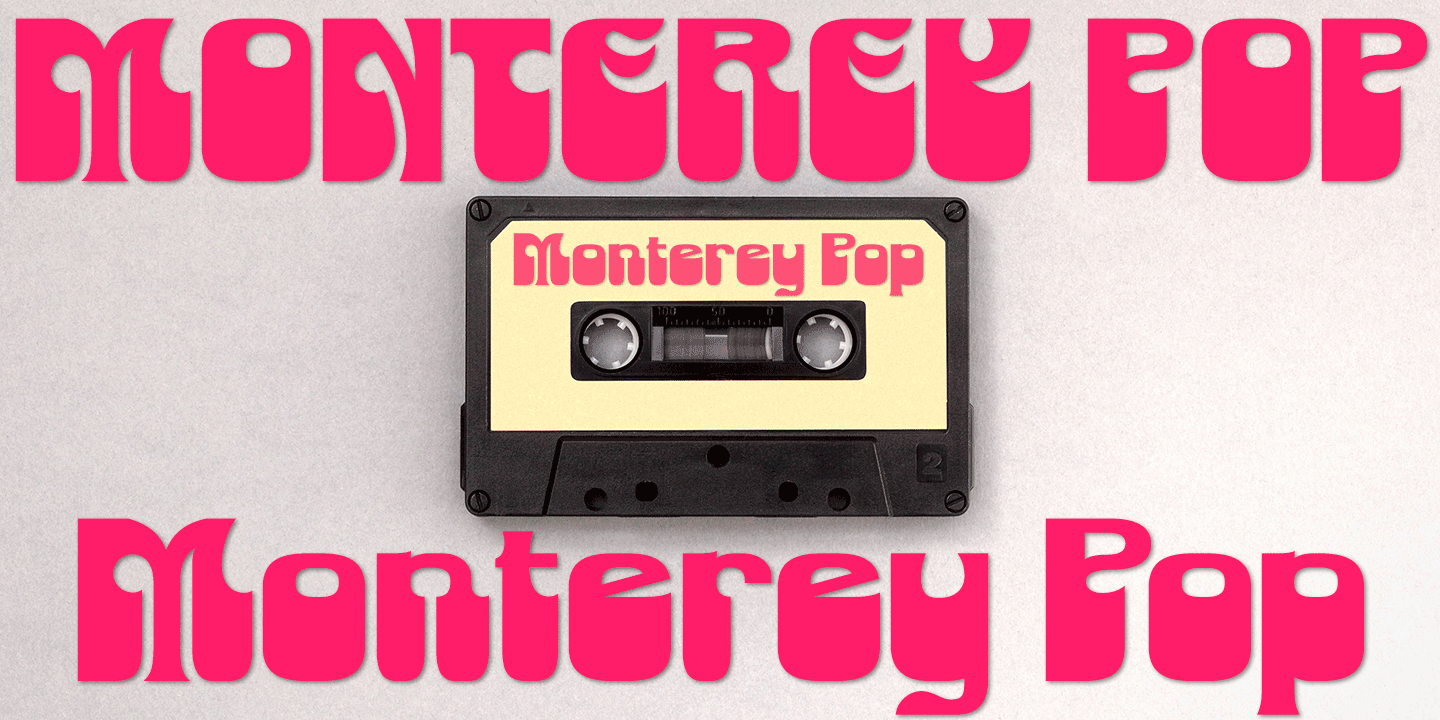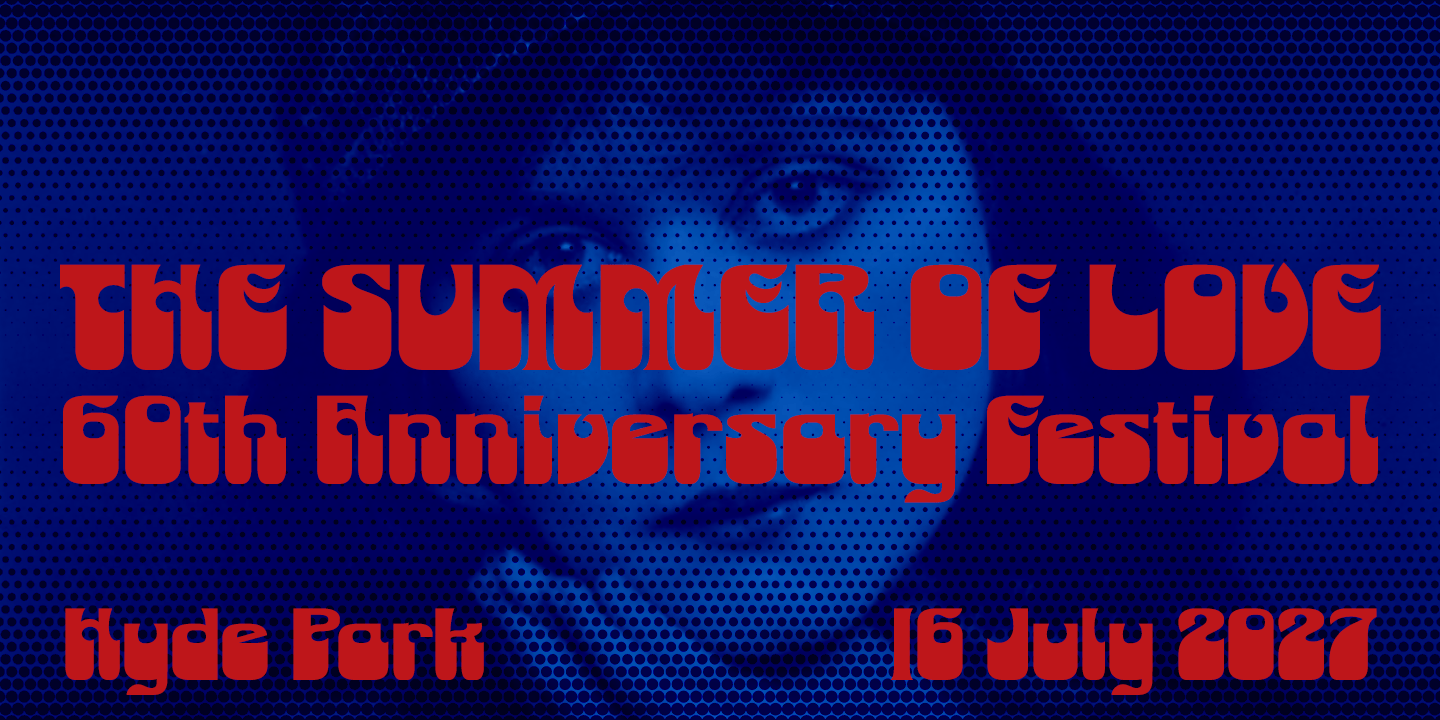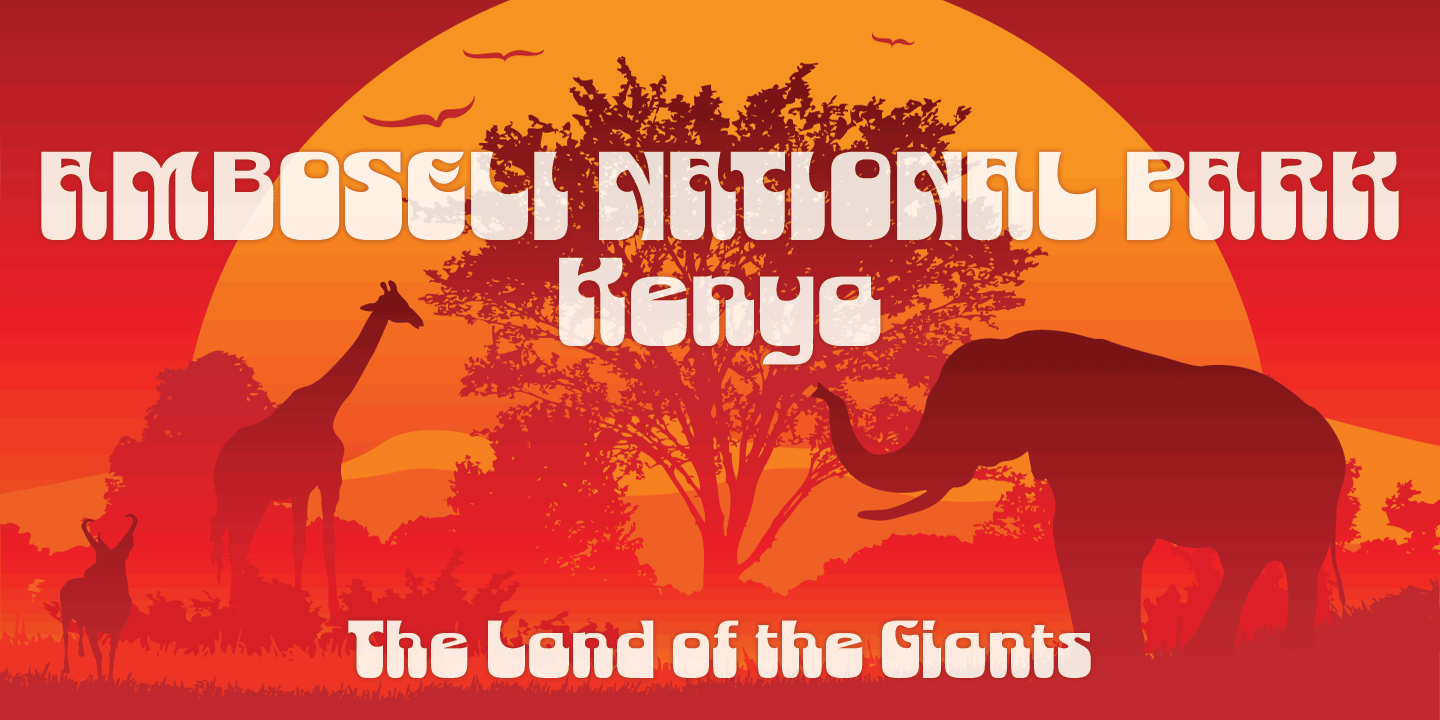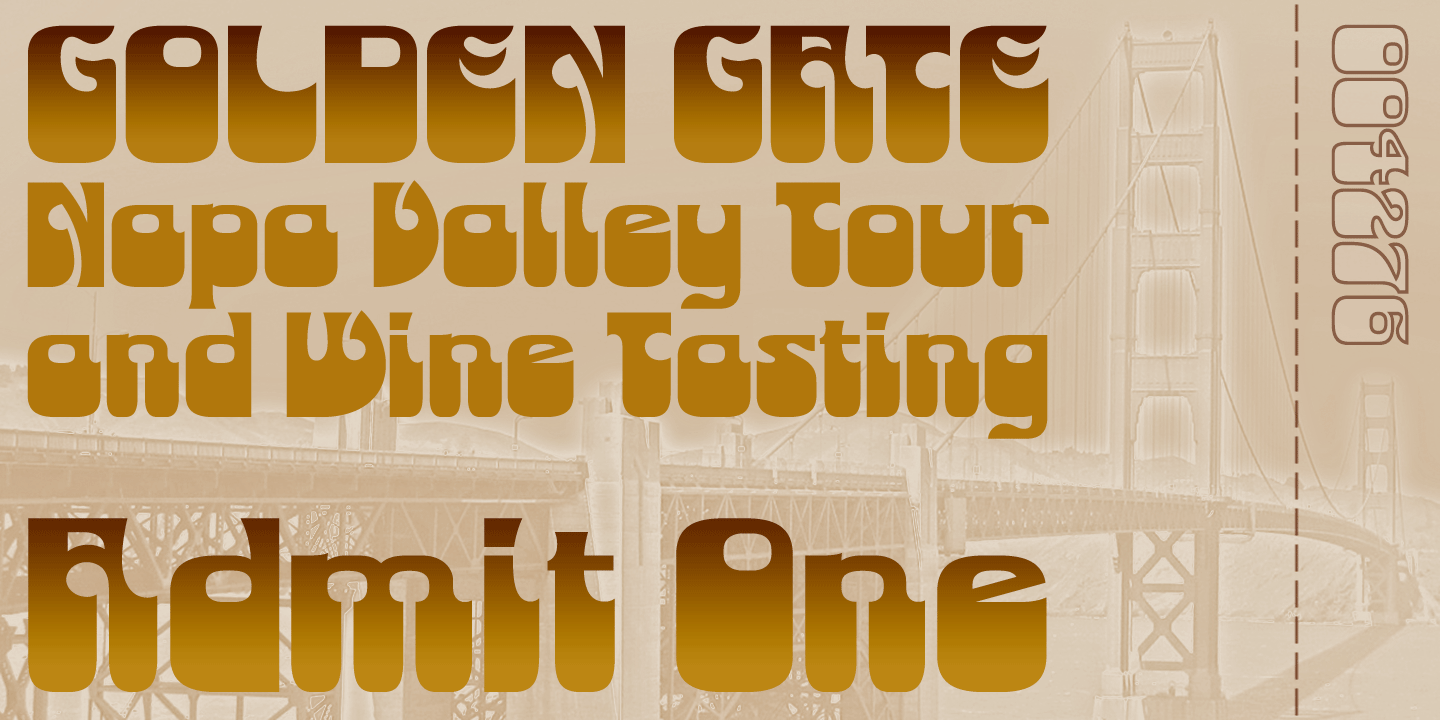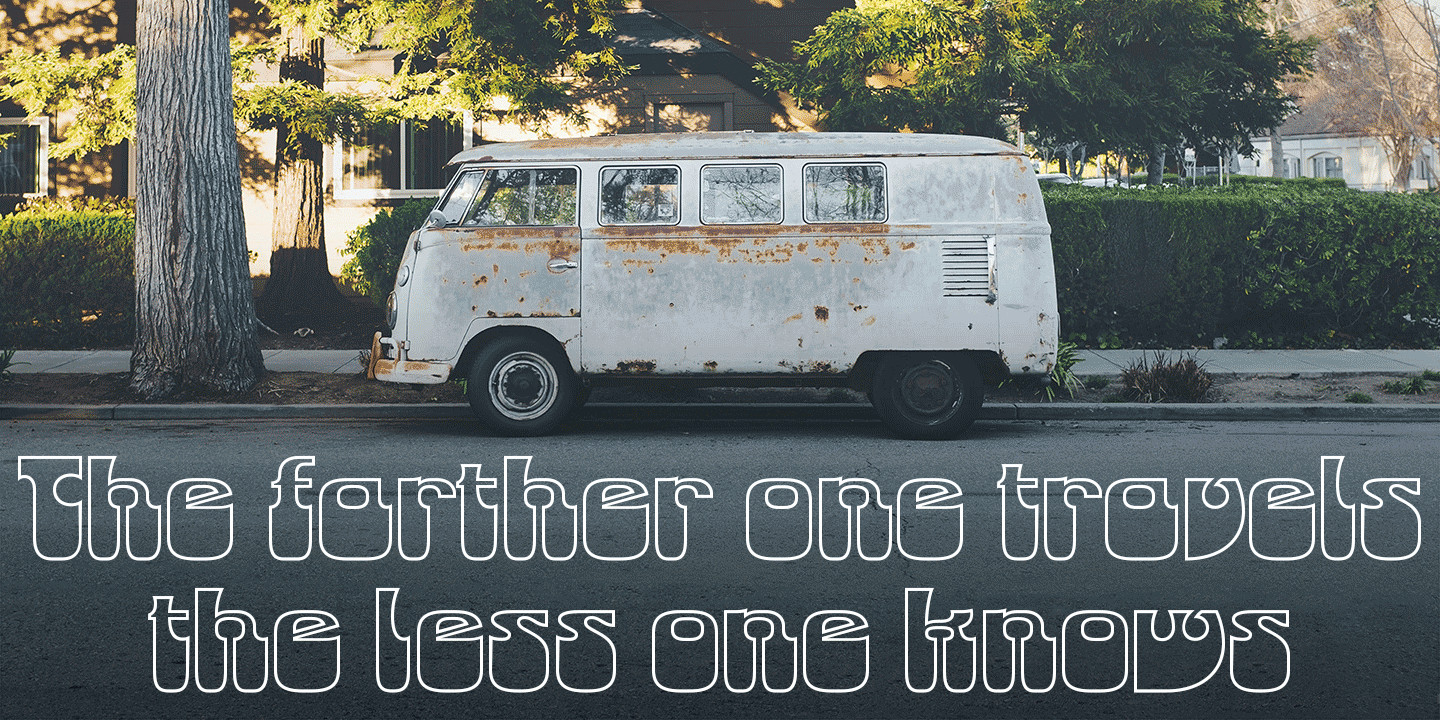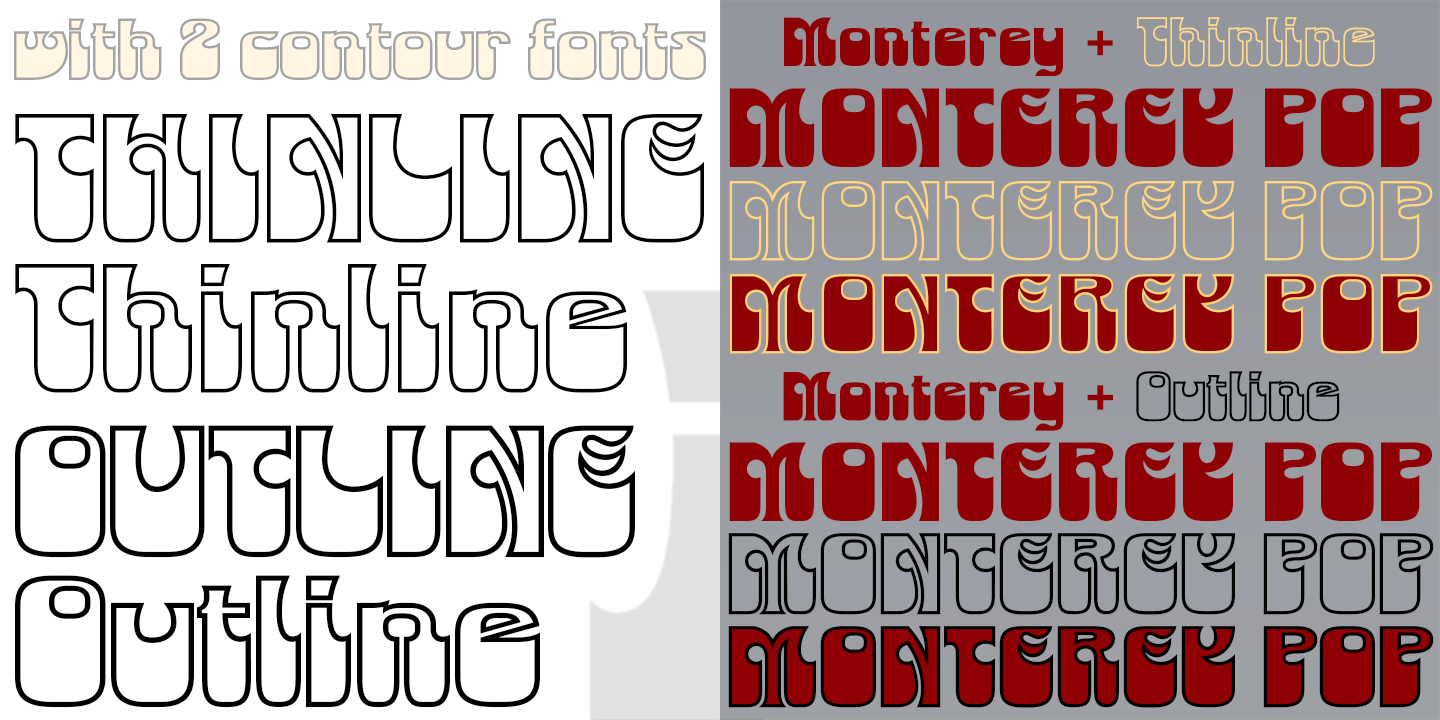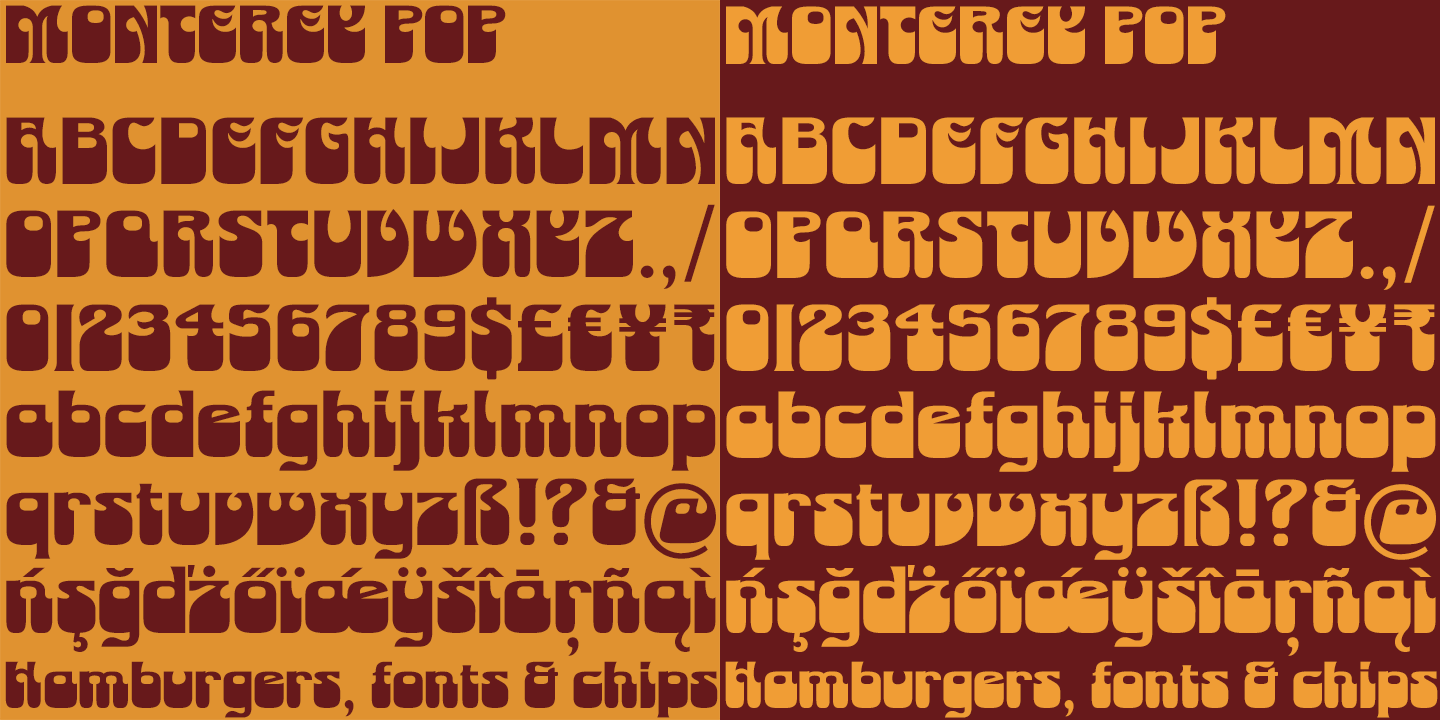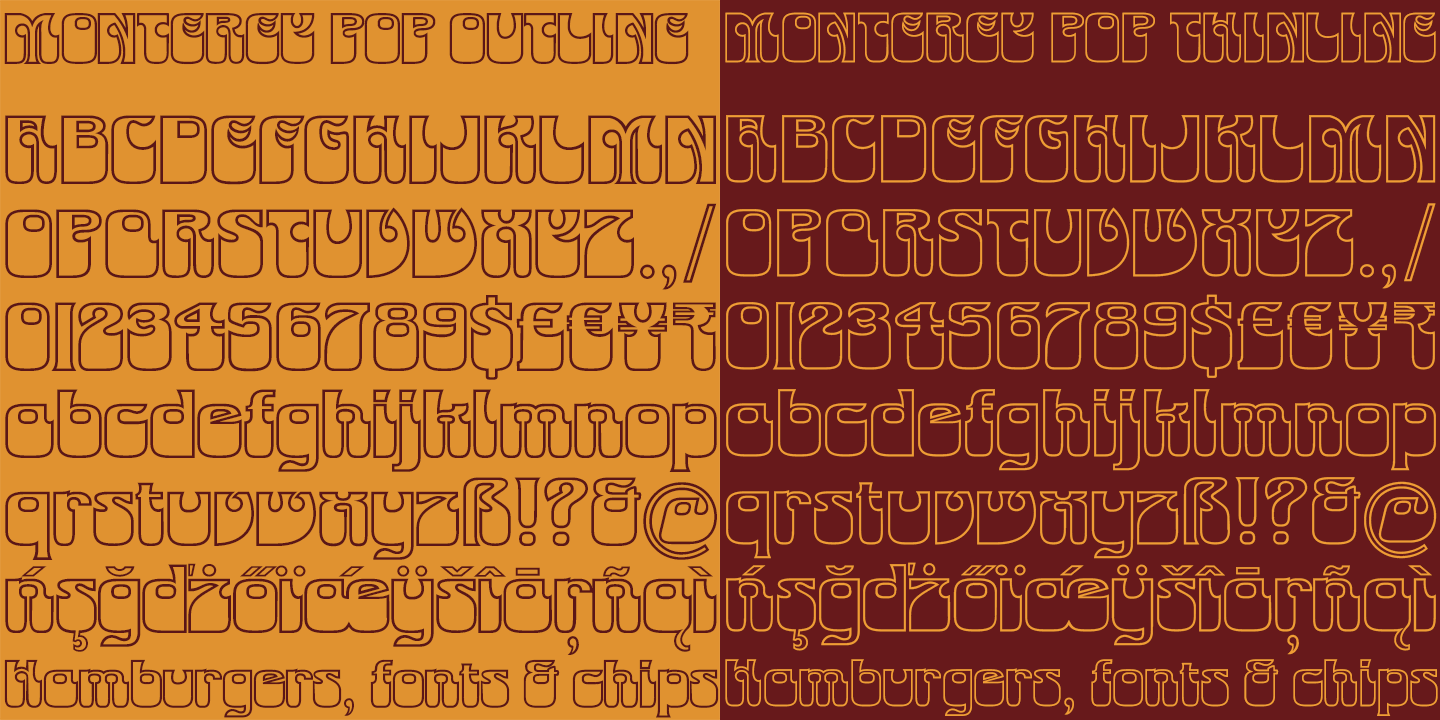
Monterey Pop
Font Family by K-Type
Monterey Pop oozes 1960s freedom and optimism, and is based on Tom Wilkes's poster lettering for the Monterey International Pop Festival in June 1967, the event which heralded the legendary Summer of Love.
The fonts include a newly-designed lowercase and a full complement of Latin Extended-A characters. In addition to the normal font, Outline and Thinline versions with matching spacing and kerning are included, for use separately or overlapped with the regular font for bicolor effects. The Outline font is best for darker lines, and the Thinline font is designed for white and tinted outlines which can tend to halo and appear slightly bolder.